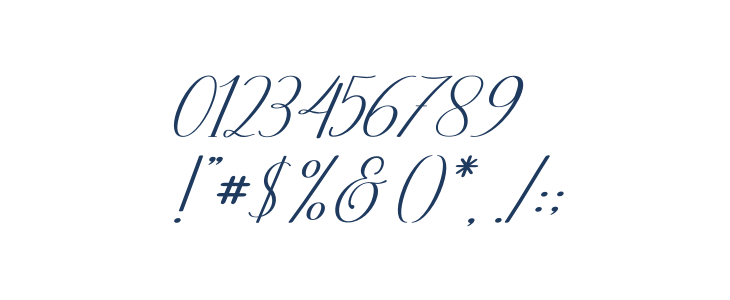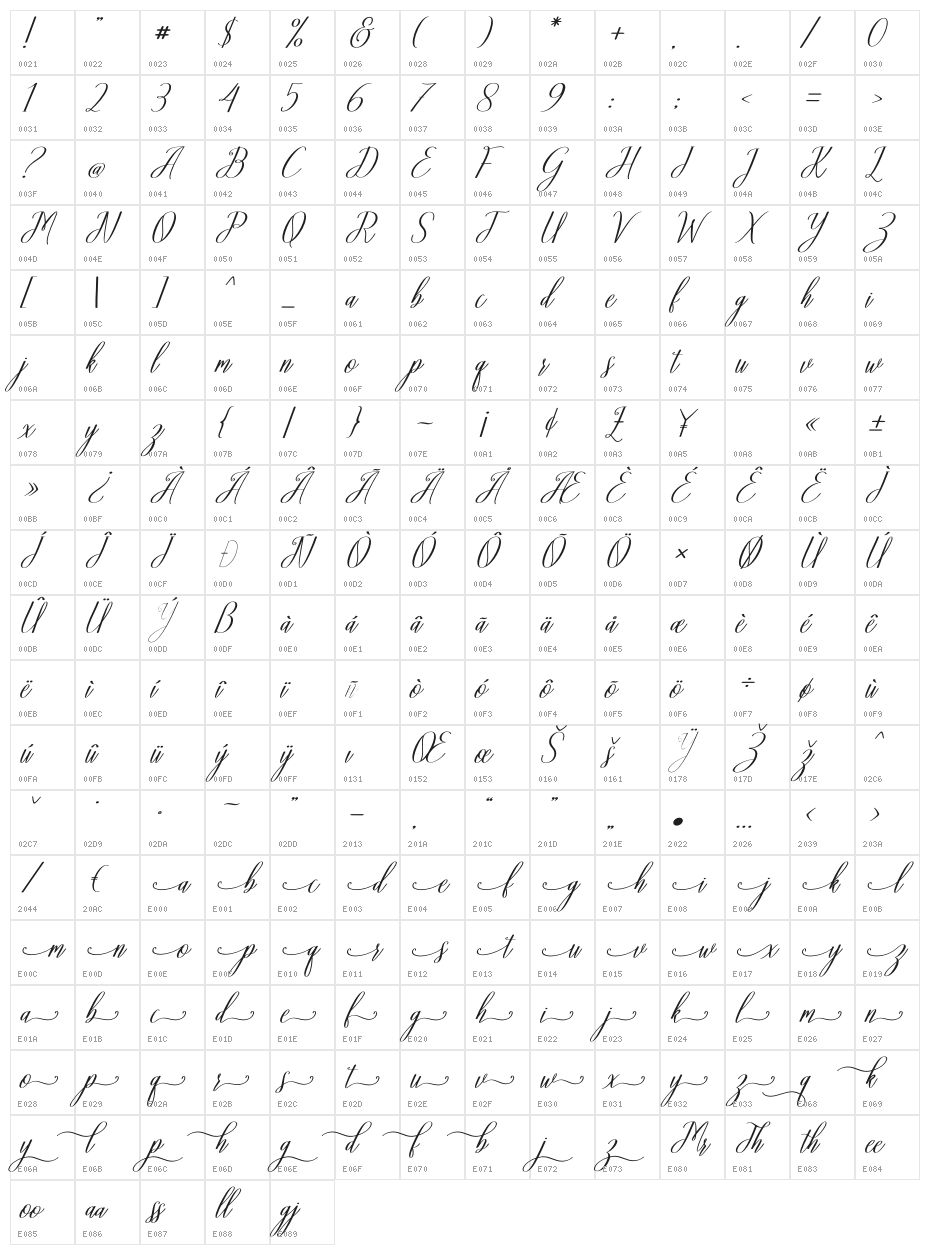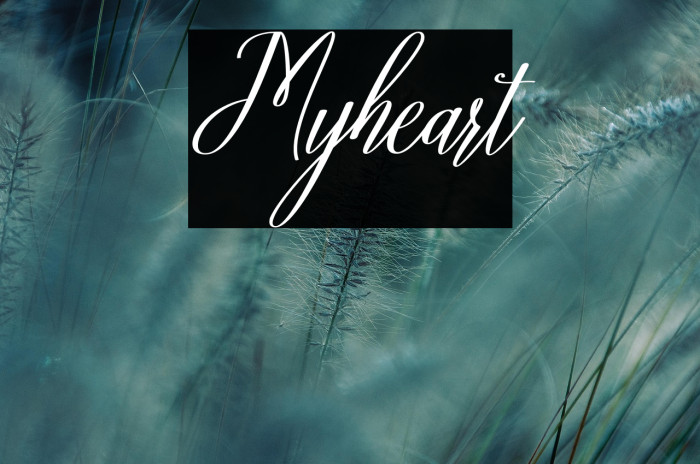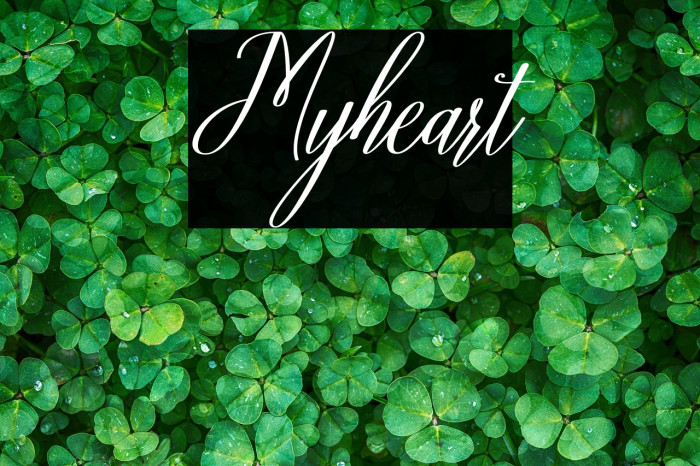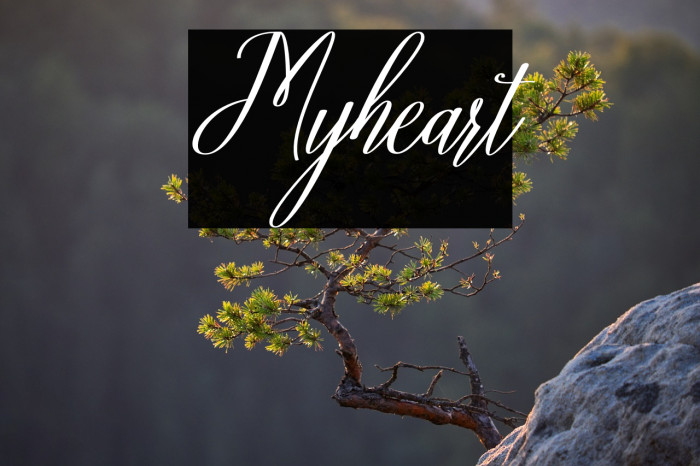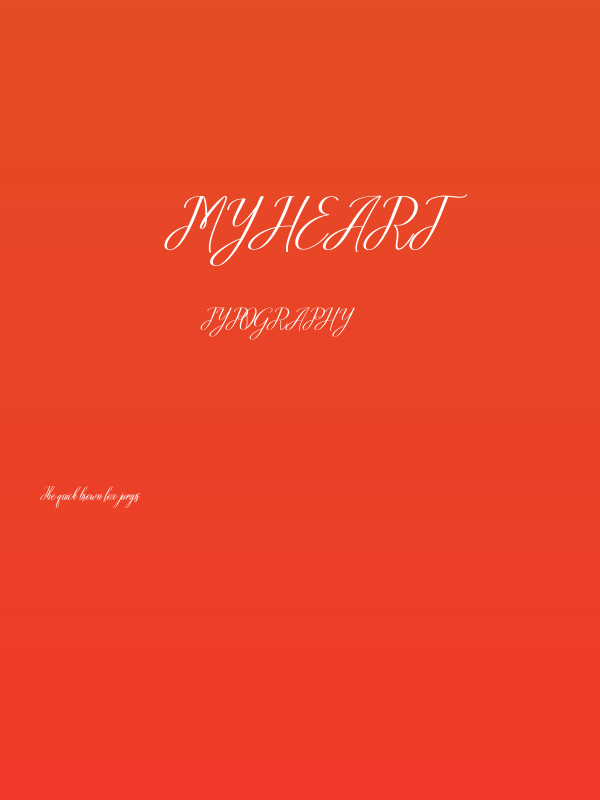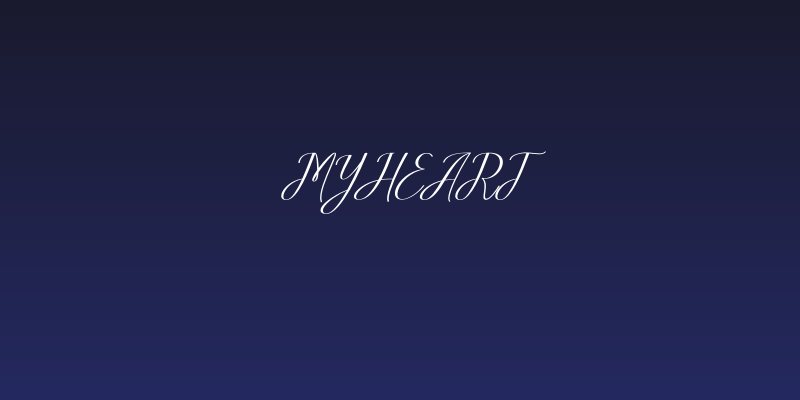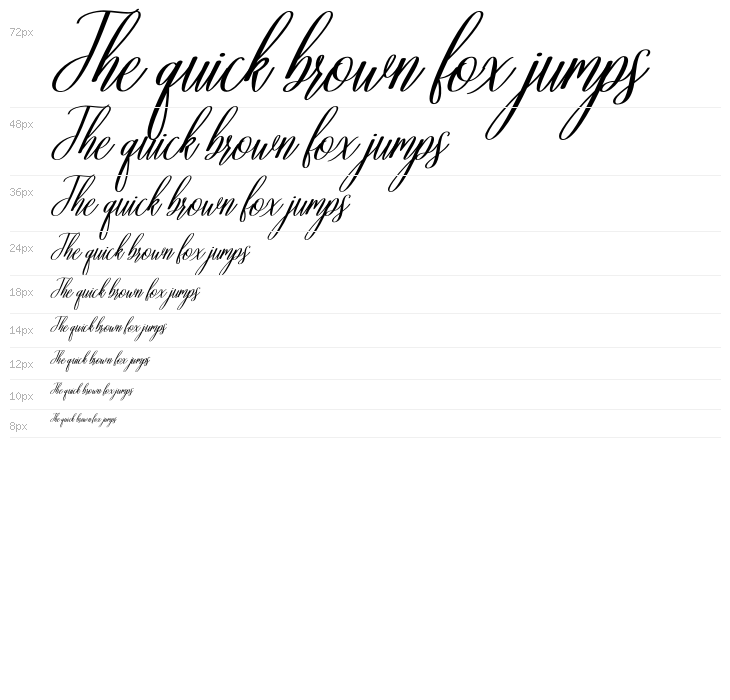
Myheart Font
Myheart Description
This elegant script font features flowing, cursive letters with a sophisticated and graceful appearance. The uppercase letters are tall and slightly slanted, with delicate loops and flourishes that add a touch of refinement. The lowercase letters maintain a consistent style, with smooth connections and a fluid motion that enhances readability. The numerals are stylishly integrated, maintaining the font's overall aesthetic. Special characters are thoughtfully designed, complementing the script's elegance. This font exudes a sense of romance and charm, making it ideal for formal invitations, branding, and decorative purposes.
| Overall Style | Elegant, Romantic |
| Use Case | Invitations, Branding, Decorative |
| Proposed Projects | Ideal for wedding invitations, elegant branding, greeting cards, and decorative projects. |